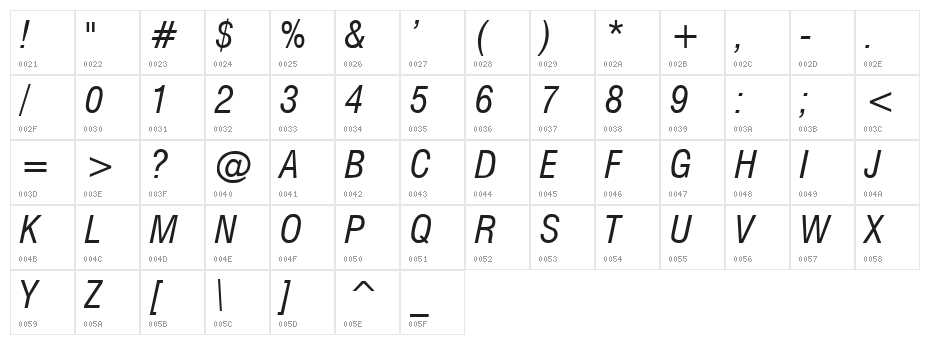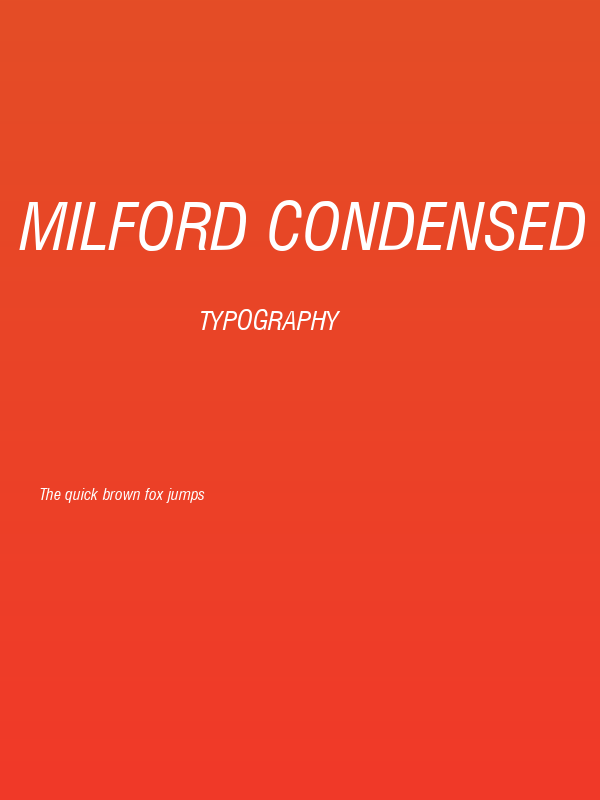
Milford Condensed Italic Font
Milford Condensed Italic Description
This font features a sleek, modern design with a condensed structure that gives it a streamlined appearance. The italic style adds a dynamic and elegant touch, making it suitable for a variety of applications. The characters are well-defined with a consistent stroke width, contributing to its readability. The uppercase and lowercase letters maintain a uniform height, while the numerals are clear and distinct. Special characters are included, enhancing its versatility. The overall look is professional and contemporary, ideal for projects that require a clean and sophisticated aesthetic.